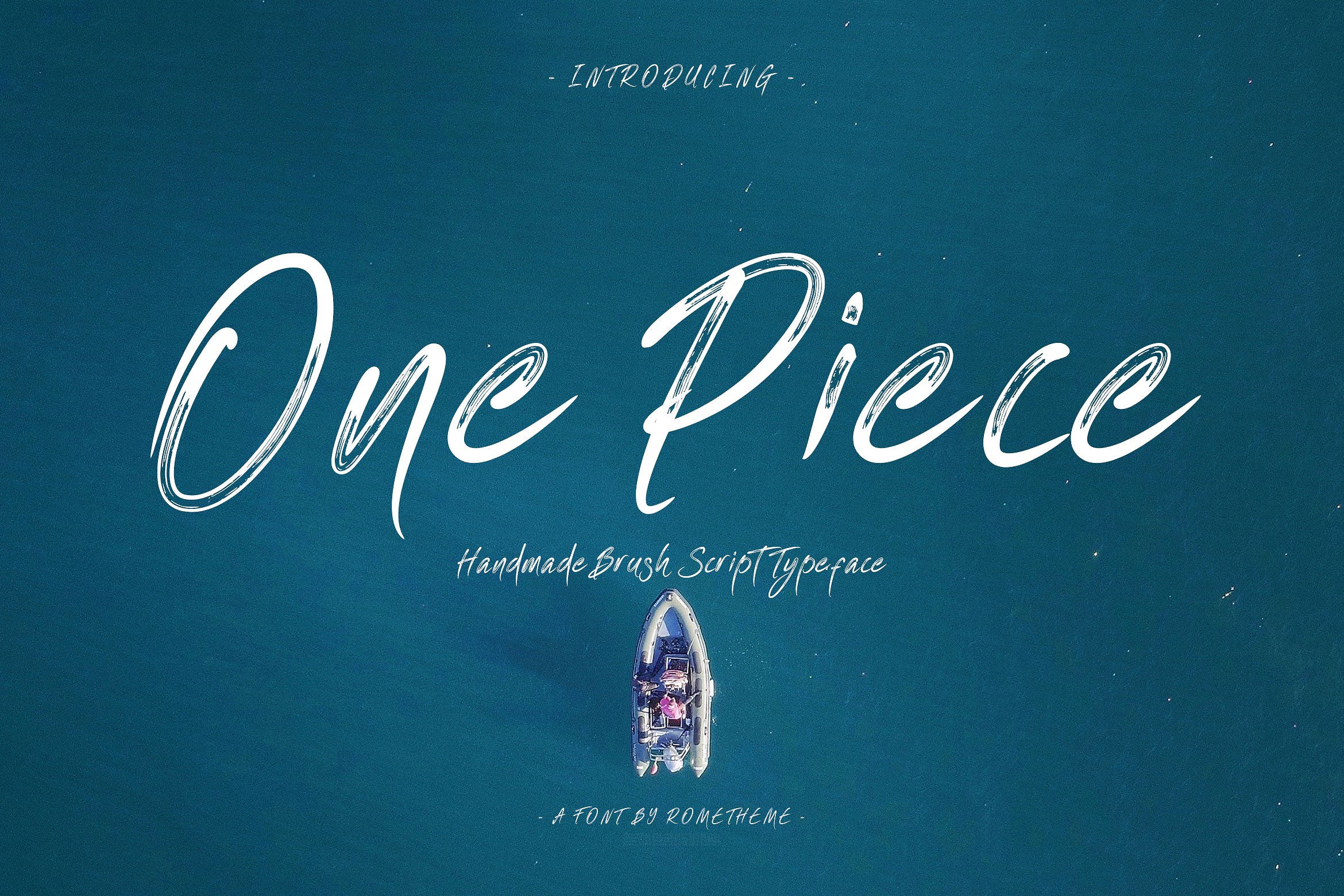
One Piece Brush
One Piece Brush Font
One Piece is a brush script typeface. It has a elegant, classy look, catchy, readable and cool. This font is perfect for giving your branding projects, font for fashion, apparel projects, and goth vibe, but also works great for other projects like posters, packaging, advertising, headlines, social media, branding, signage and anything where you want that urban look and feel.